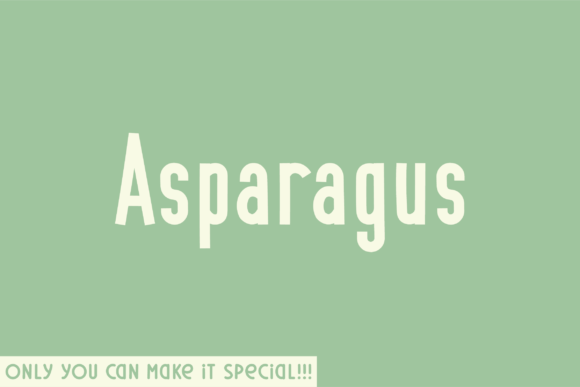
Welcome to the world of Asparagus Font, a font family uniquely tailored for Instagram and beyond. Crafted with precision and a touch of artistry by Hanna Bie, Asparagus Font is a natural sans serif font that exudes elegance and distinctiveness.
Dive into a world of endless possibilities with Asparagus Font. Its remarkable design stems from a meticulous process where every character's indentation remains untouched, resulting in a font that's both intriguing and aesthetically pleasing. This unique approach gives Asparagus Font a captivating charm that sets it apart from the ordinary.
With its clean lines and graceful curves, Asparagus Font flawlessly complements quotes, notes, tees, and an array of product designs. Its versatility knows no bounds, making it the perfect choice for those seeking a font that effortlessly elevates their creations.
Asparagus Font is more than just a font; it's a gateway to unlocking your creativity. Its natural and organic vibe adds an aura of authenticity to your designs, while its sans serif structure ensures readability and clarity. Whether you're a seasoned designer or just starting your creative journey, Asparagus Font will be your trusted companion, guiding you towards stunning visual masterpieces.
Embrace the beauty of simplicity with Asparagus Font. Its minimalist design allows your content to take center stage, enhancing its impact and leaving a lasting impression on your audience. Stand out from the crowd with a font that speaks volumes, even in its subtle elegance.
Asparagus Font is your key to creating captivating Instagram posts, eye-catching graphics, and standout product designs. Its versatility extends to various platforms and applications, making it the ultimate choice for those who seek a font that seamlessly adapts to their creative needs.
Step into the world of Asparagus Font and witness the transformation of your designs. Let its natural charm infuse your creations with a touch of sophistication and originality. Unlock your creative potential and leave your mark on the world, one beautiful design at a time.